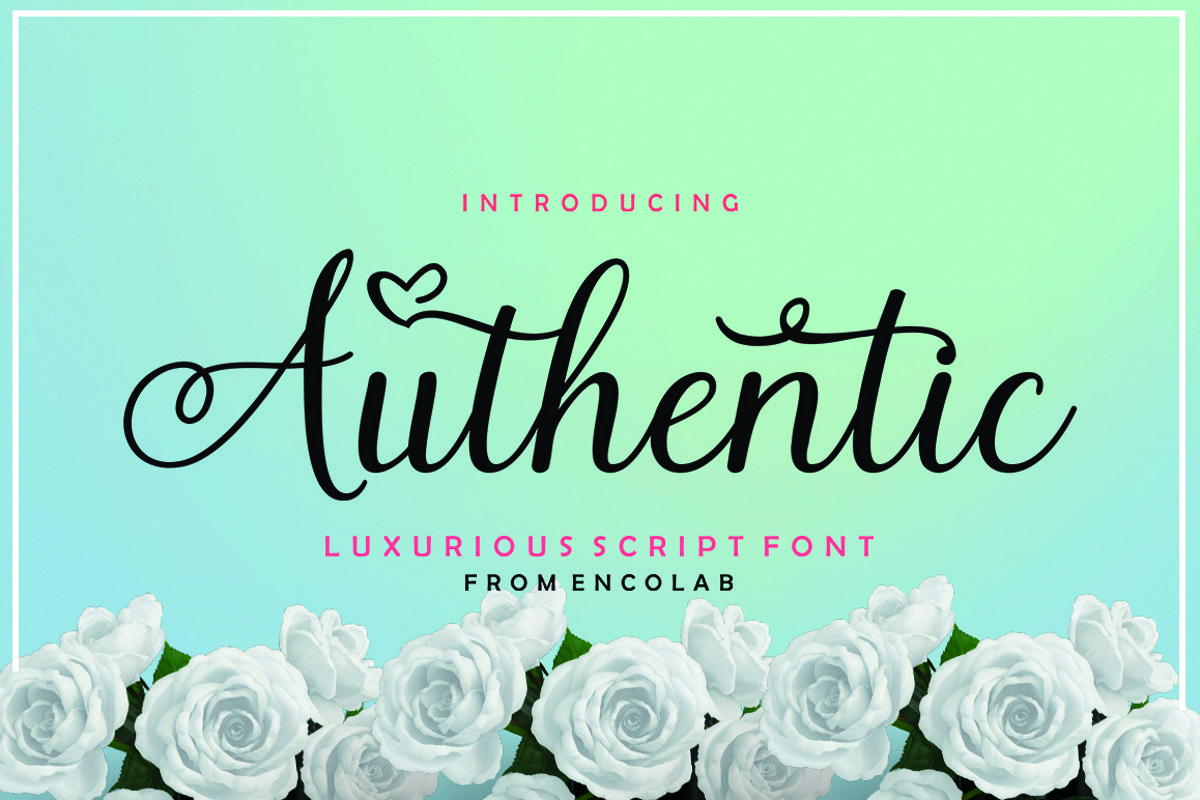
Authentic
Authentic Script
Authentic Script is a modern handwritten font with handwritten suitable for invitations, logo, product packaging, wedding invitations, branding, headlines,  labels, book covers, posters, quotes and more.This font replaces all lowercase letters, also comes with ligatures and unique and beautiful alternatives as well as international support for most western languages. Fonts include (OTF & TTF).How to access all of the alternate characters: